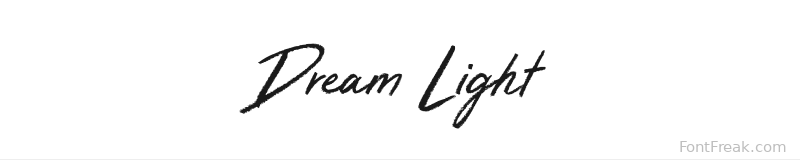
Dream Light
About Dream Light
Dream Light by BLKBK Fonts is a captivating script font that embodies elegance and whimsy. As a handwritten style typeface, it features flowing, cursive strokes that exude a sense of lightness and creativity. The strokes are characterized by a medium weight, offering a pleasing contrast that enhances readability while maintaining a delicate appearance. The generous spacing between characters allows for easy legibility, making it an excellent choice for various design projects.
This font is ideal for a range of applications, including wedding invitations, where its romantic flair can set the perfect tone for the occasion. It also shines in branding materials for boutique shops, providing a chic and personal touch that resonates with customers. Additionally, Dream Light is well-suited for greeting cards and personalized stationery, lending a heartfelt quality to any message. Content creators looking to elevate their social media graphics will find this font particularly engaging, as its playful yet sophisticated style captures attention in a crowded digital landscape.
Targeting graphic designers, small business owners, and content creators alike, Dream Light offers versatility and charm. Its handcrafted essence appeals to those seeking a unique touch in their projects, ensuring that designs stand out in a memorable way.
What sets the Dream Light font apart is its ability to blend casual elegance with approachability. It invites viewers to engage with the content, whether on a printed page or a digital screen. Its freeware license allows for easy access and experimentation, making it a valuable addition to any designer's toolkit. For those interested in enhancing their projects, the Dream Light font free download is an opportunity to incorporate a beautiful and versatile typeface into their work.